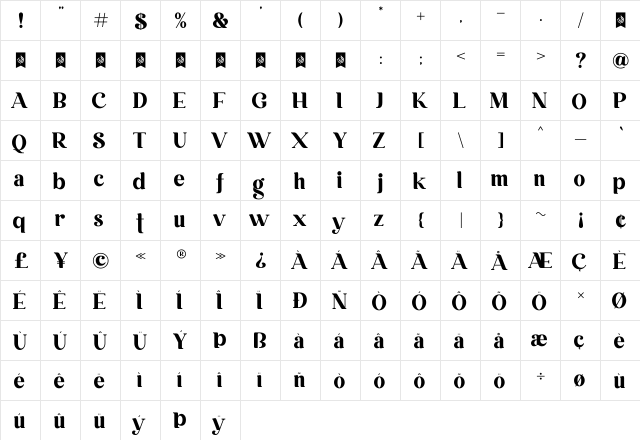
Embryotic Regular
Design Context for Embryotic Typeface
Embryotic takes a measured approach to typography — its balanced proportions and neutral character make it a reliable workhorse for both digital and print work.